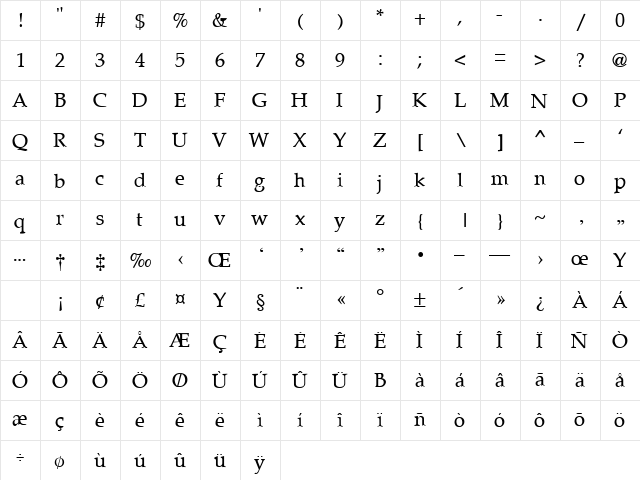
Plinius Regular
Design Context for Plinius Typeface
Plinius is a composed and adaptable typeface that performs quietly and consistently across a wide range of design contexts.